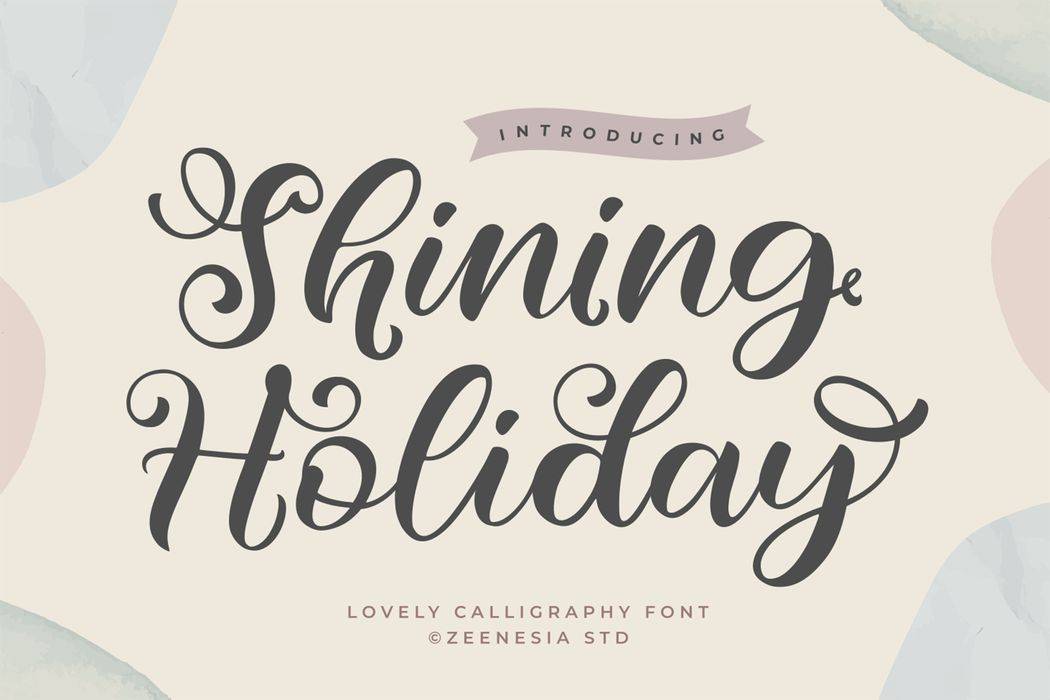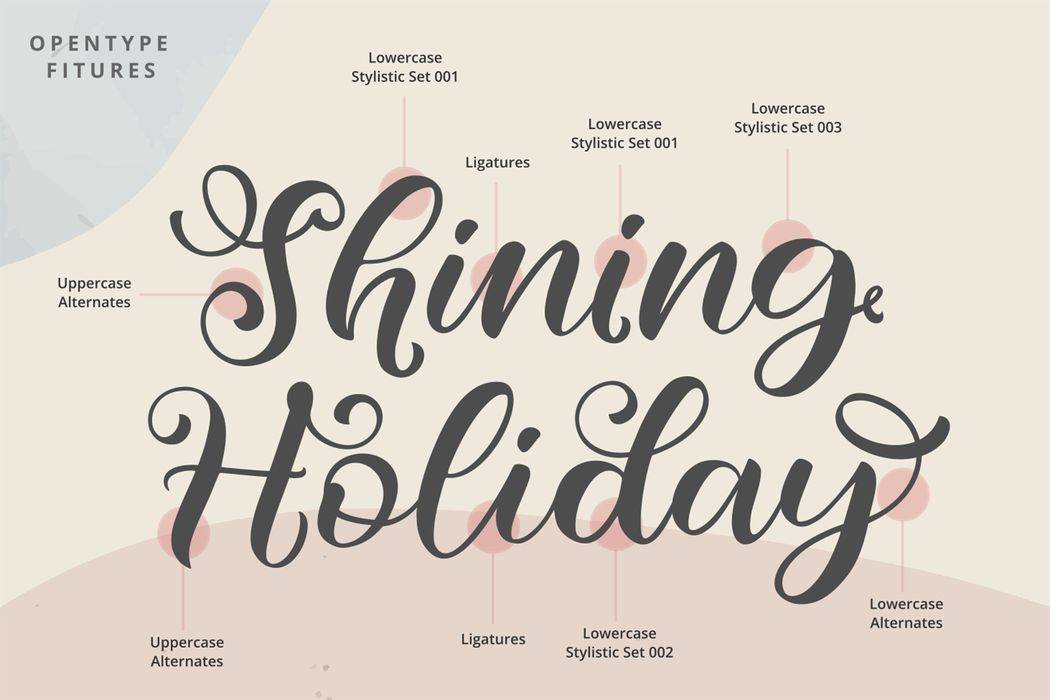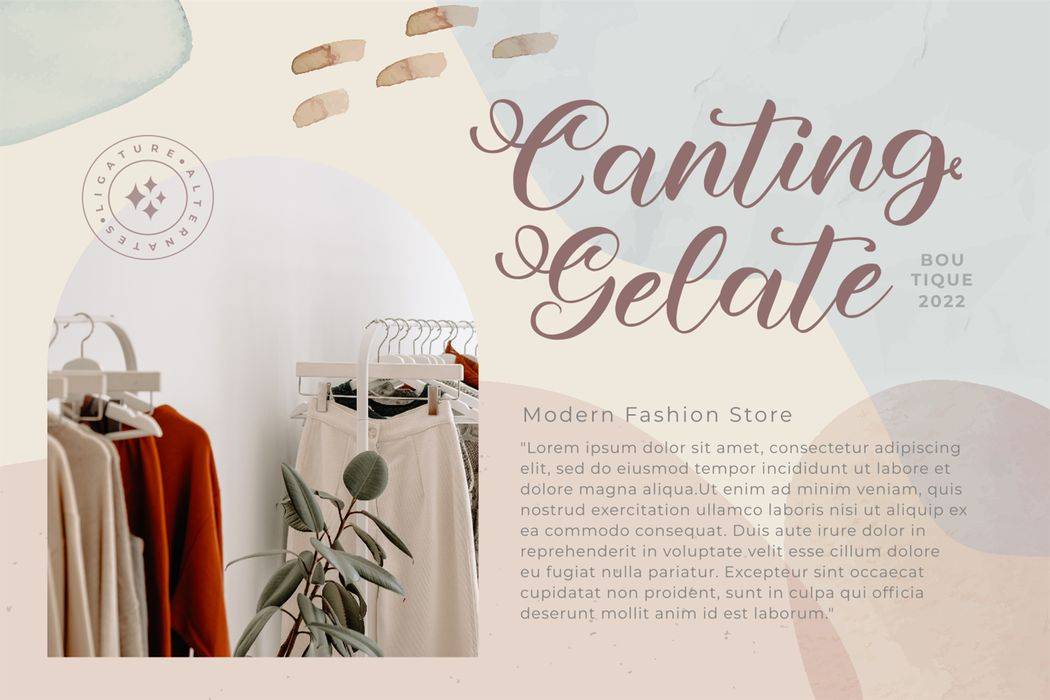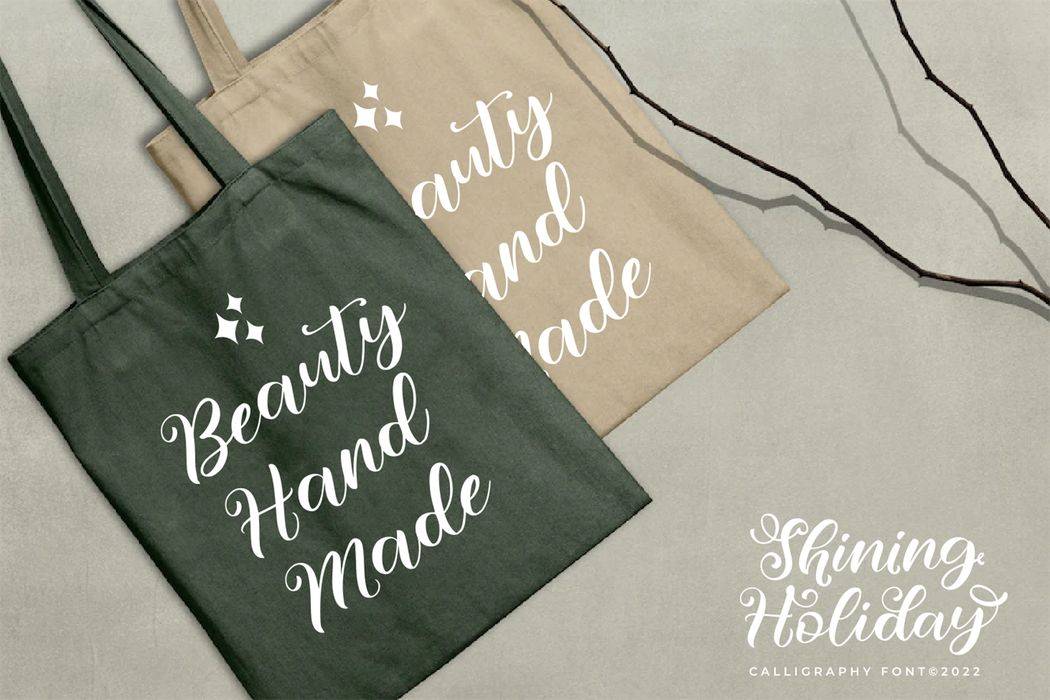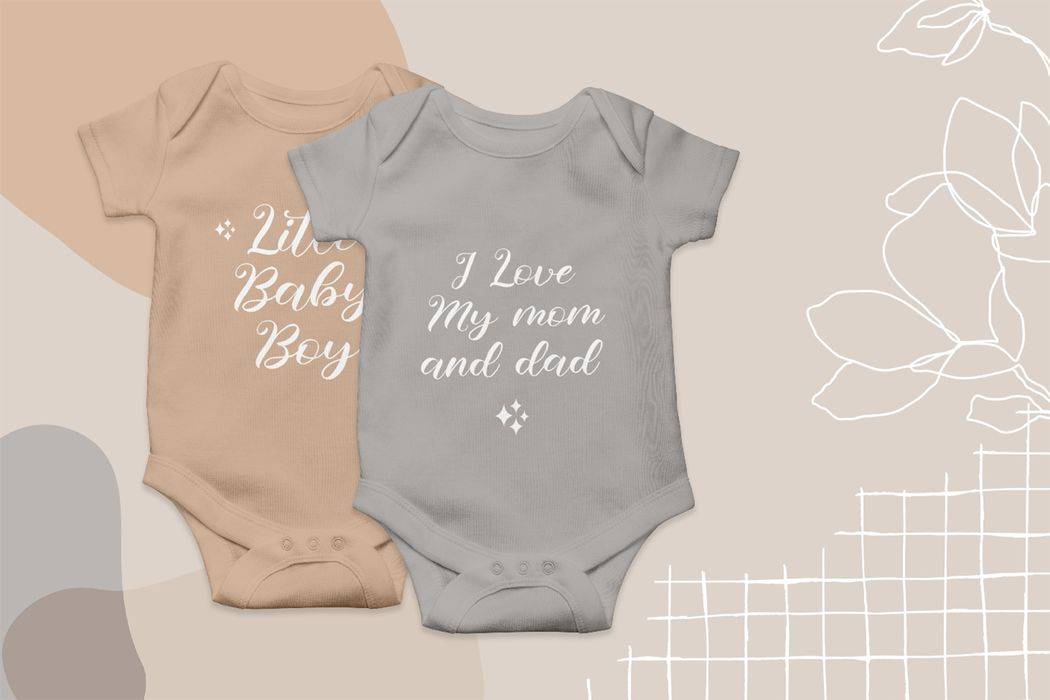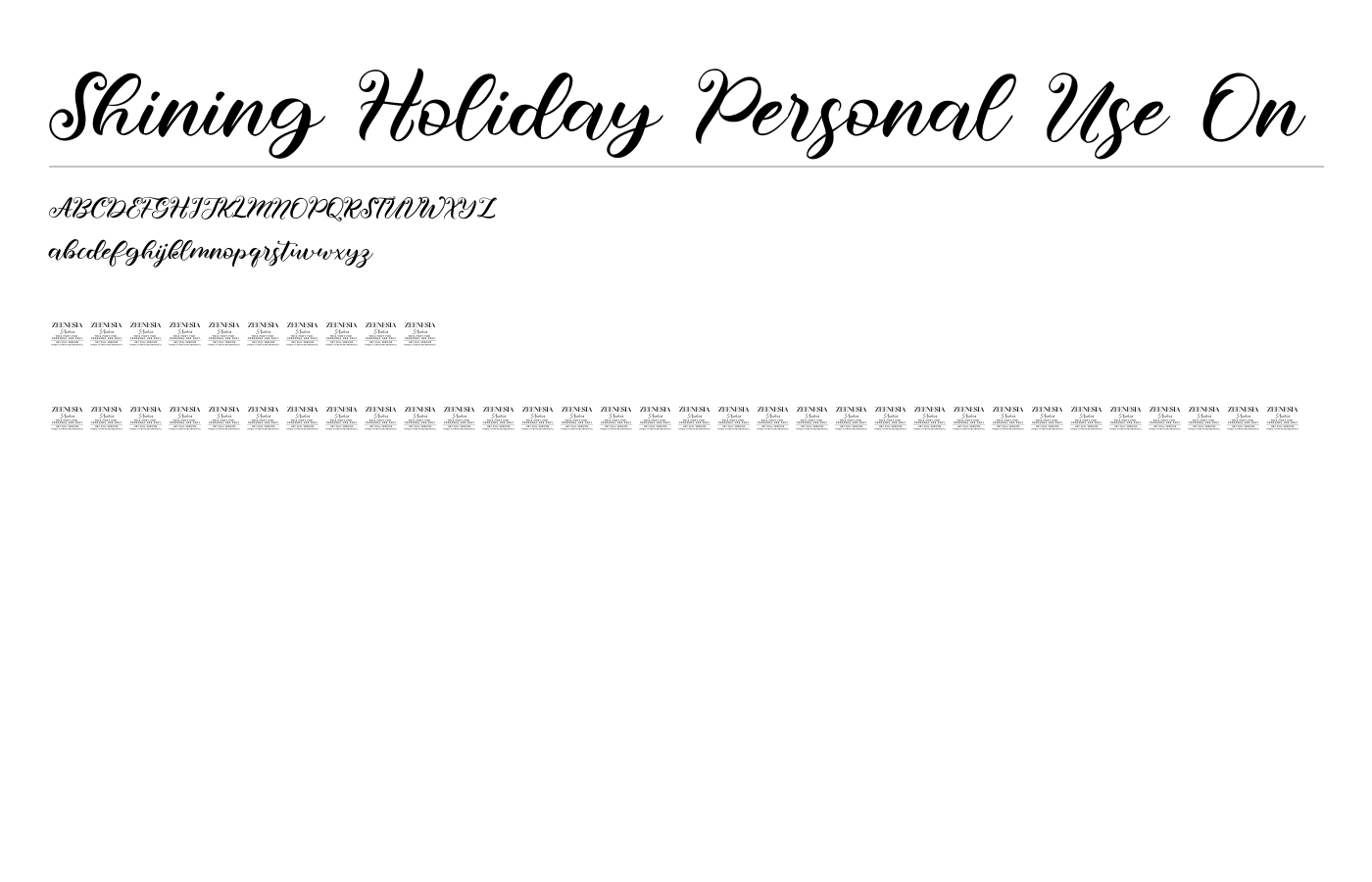
Shining Holiday is an elegant script font with smooth, flowing strokes that create a graceful and festive feel. Its medium contrast and refined cursive style make it perfect for holiday-themed designs, invitations, and branding that require a touch of sophistication and warmth. This font works beautifully in headlines and decorative text where a charming, personal touch is desired.
Shining Holiday Font
About Shining Holiday Font